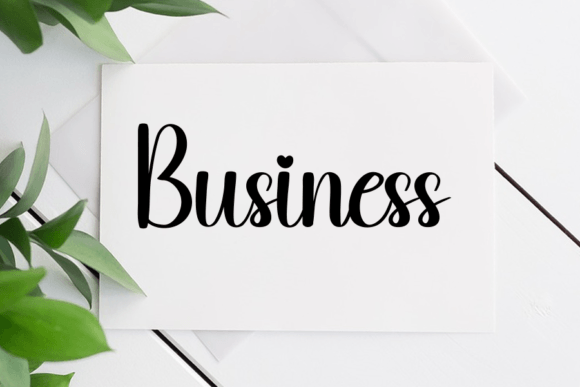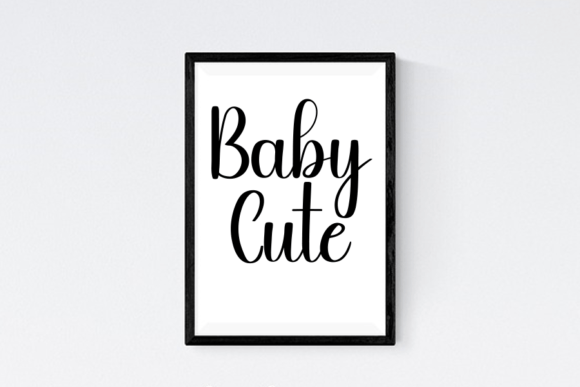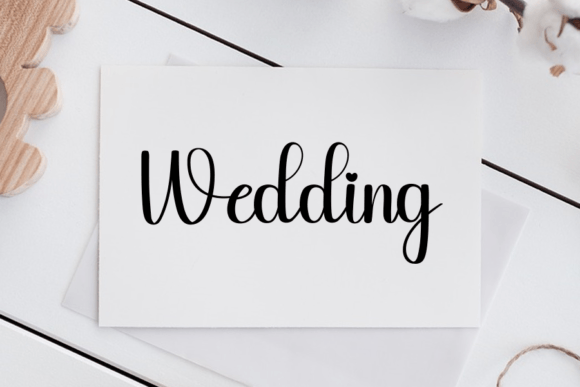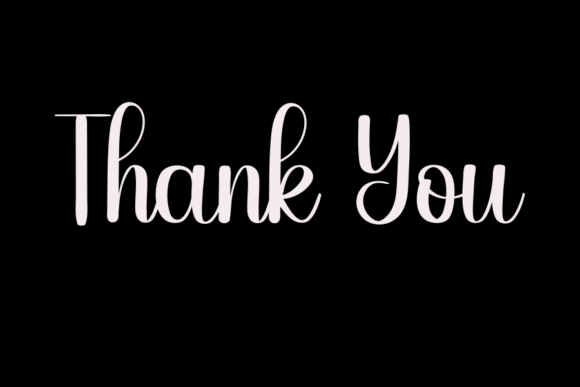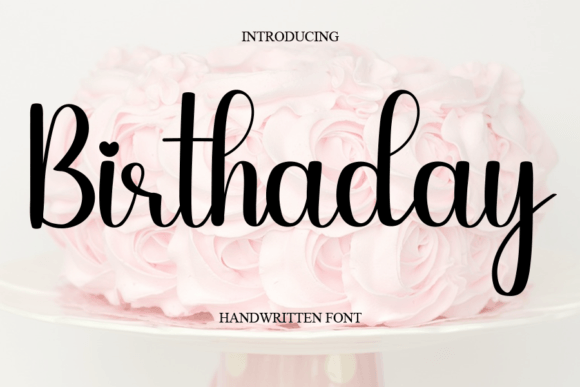
The Birth of a Beautiful Font: A Designer’s Delight
I’ll never forget the time I was working on a birthday card project for a client, and I just couldn’t seem to find the perfect font. I wanted something that was simple, yet elegant; something that would add a touch of warmth and personality to the design. That’s when I stumbled upon the Birthday Font! ✨
This beautiful, handwritten font has been a game-changer for me, and I’m excited to share my experience with you. In this article, we’ll dive into the world of Birthday Font, exploring its features, uses, and some helpful tips and tricks for getting the most out of this versatile font.
So, what makes Birthday Font so special? Here are a few things that I absolutely love:
- ✨ Simple and elegant: Birthday Font has a clean, effortless look that’s perfect for a wide range of design projects.
- ✅ Versatile: From greeting cards to headlines, this font can be used in a variety of contexts.
- 💕 Warm and inviting: The handwritten feel of Birthday Font adds a touch of personality and warmth to any design.
Of course, no font is perfect, and Birthday Font has a few small quirks to keep in mind:
- 🤔 Limited character set: While Birthday Font has a wide range of characters, it’s not a full-featured font with every possible glyph.
- ⚠️ Some kerning issues: As with any font, you may need to adjust the kerning to get the best results.
The Story Behind Birthday Font
So, where did Birthday Font come from? According to its designer, Birthday Font was created as a way to capture the simple, elegant feel of handwritten text. The designer wanted to create a font that would be perfect for a wide range of design projects, from greeting cards to headlines.
| Font Name | Birthday Font |
| Author | cans studio |
| What is the best way to use Birthday Font? | Birthday Font is a versatile font that can be used in a wide range of design projects, from greeting cards to headlines. |